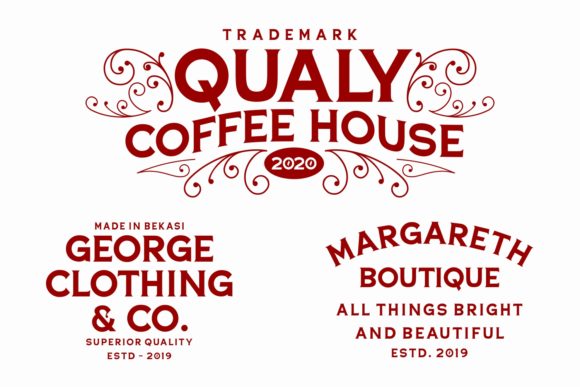
Introduction to Erisko Font
Erisko is a stunning vintage typeface with beautiful and rich ornaments.
This must-have font will add a luxurious and dynamic vibe to any design project, be it wedding invitations, social media, greeting cards, and much more .
Key Features of Erisko Font